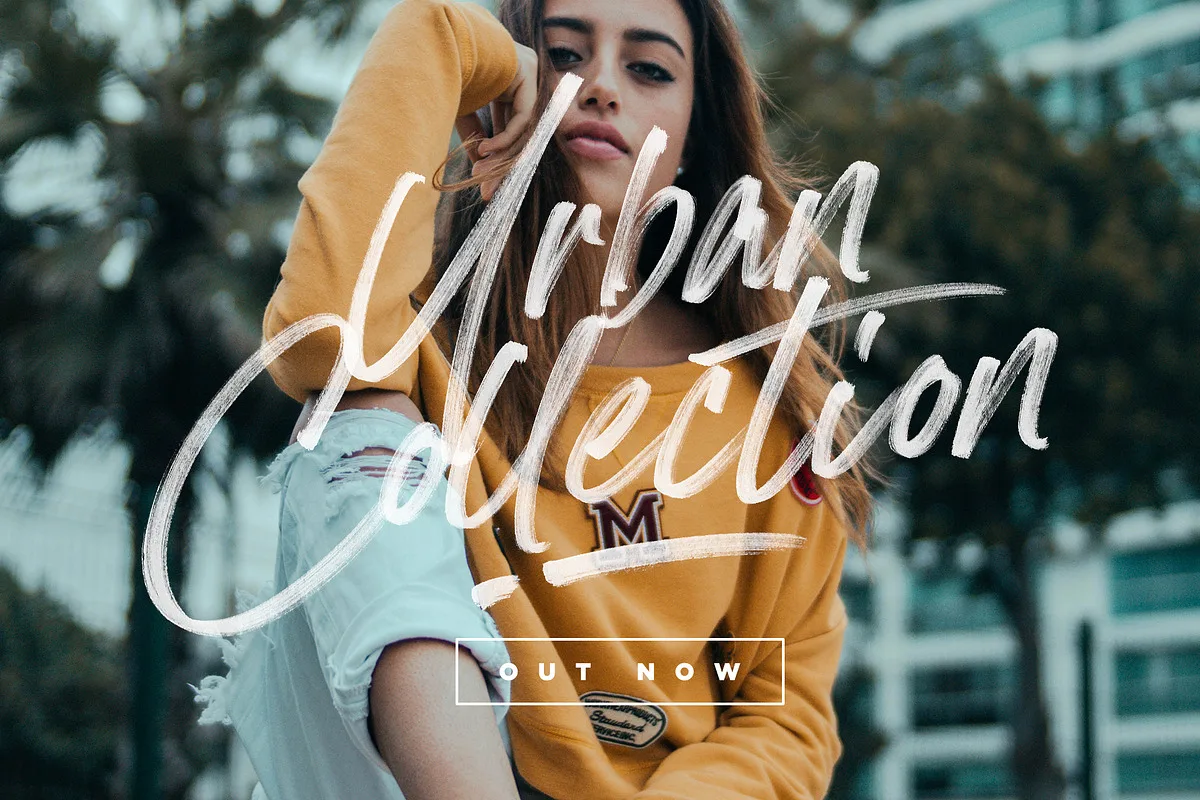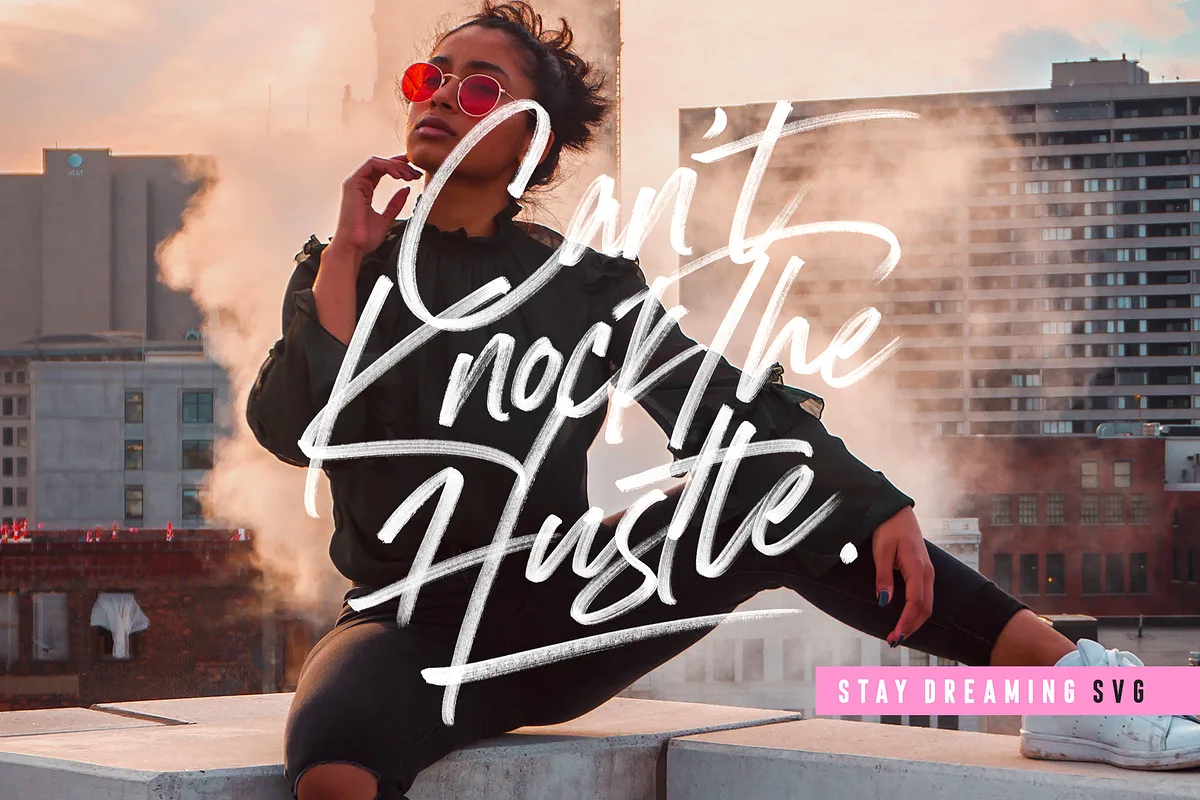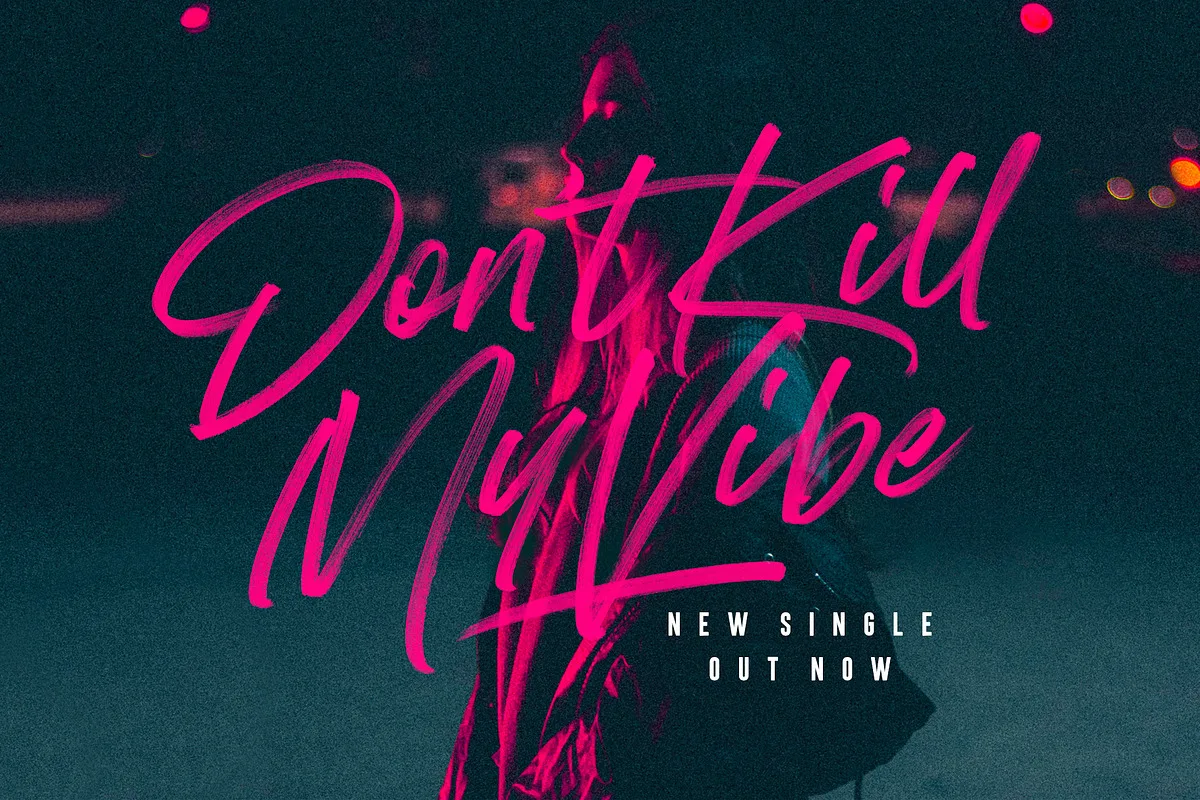
Stay Dreaming is an expressive, streetwise script font with a fast flow and dry textures to the max. It’s a bold choice of typography ideal for injecting a confident, custom-made style to your design project.
It is packed full of extra features; The script font includes a full alternate set of characters, as well as an additional SVG version, containing extra high-resolution marker pen textures.
Also included is a set of 26 Swashes, these fast strokes are ideal for underlining the script font and giving your text that extra flair & customized feel.
Stay Dreaming Brush Font